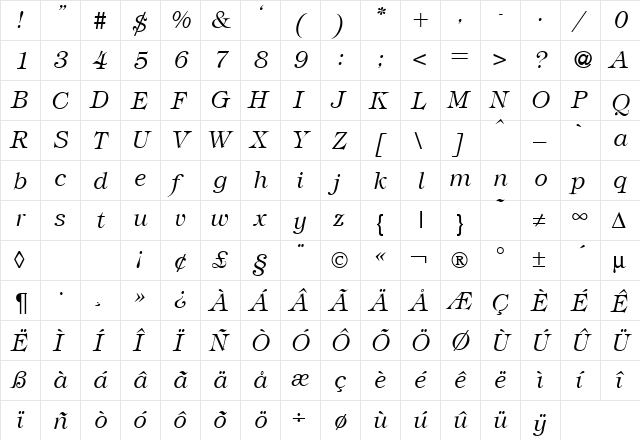
Design Context for TiffanyTwoLight Typeface
TiffanyTwoLight takes a measured approach to typography — its balanced proportions and neutral character make it a reliable workhorse for both digital and print work. The dynamic lean of this cut emphasises speed and emphasis in any layout. The delicate stroke weight brings airiness and refinement to layouts.